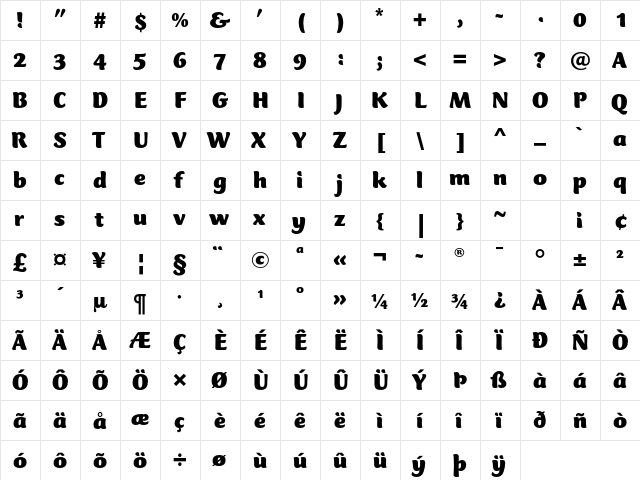
Mercurius CT Std Black
| Designer | Adrian Williams |
Design Context for Mercurius CT Std Typeface
Mercurius CT Std offers clean, dependable letterforms without strong stylistic allegiance, making it a practical choice for designers who need flexibility.